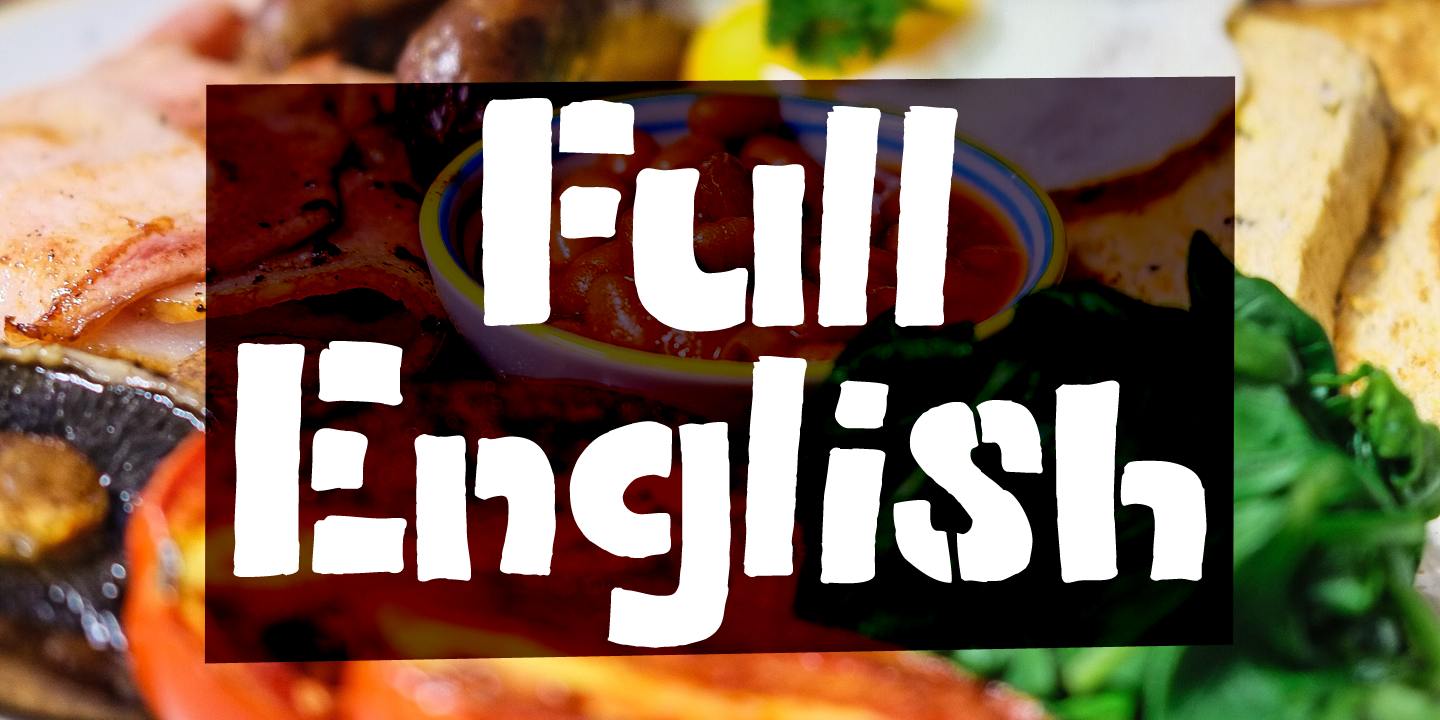
Full English Font is perfect for traditional British pub signage, English breakfast restaurant menus, London tourism materials, vintage British advertising, heritage brand identities, classic tea house branding, traditional bakery packaging, British literature publications, countryside bed-and-breakfast marketing, and authentic English cultural celebrations. This distinguished typeface excels in applications where British heritage and traditional English character need to be communicated with authentic charm and quintessential British personality that honors centuries of cultural tradition.
What makes Full English Font exciting is its extraordinary ability to capture the essence of traditional British culture through its robust letterforms that embody the hearty, no-nonsense character of authentic English traditions. The font reflects the spirit of classic British craftsmanship and cultural heritage with its sturdy construction and reliable proportions that suggest the dependable quality of traditional English institutions. Its carefully balanced character details and heritage personality create an atmosphere of trustworthy authenticity that resonates with audiences seeking genuine British experiences and traditional cultural values.
The Full English Font family typically includes Regular and Bold weights, each maintaining the signature British characteristics and traditional appeal. Some versions offer decorative elements inspired by Victorian typography, ornamental flourishes reminiscent of classic pub signs, and alternative character sets that enhance the heritage aesthetic. The family may also include condensed variants for efficient menu layouts and display cuts optimized for traditional signage applications.
Whether you're creating authentic British brand identities, traditional hospitality materials, or heritage-focused marketing campaigns, Full English Font Free Download delivers the perfect British character your culturally-conscious projects deserve. Its traditional English styling and heritage appeal make it an invaluable choice for pubs, restaurants, tourism businesses, and designers working in British hospitality, heritage tourism, and traditional food service sectors where authentic cultural representation and trustworthy British character are essential for establishing credible connections.